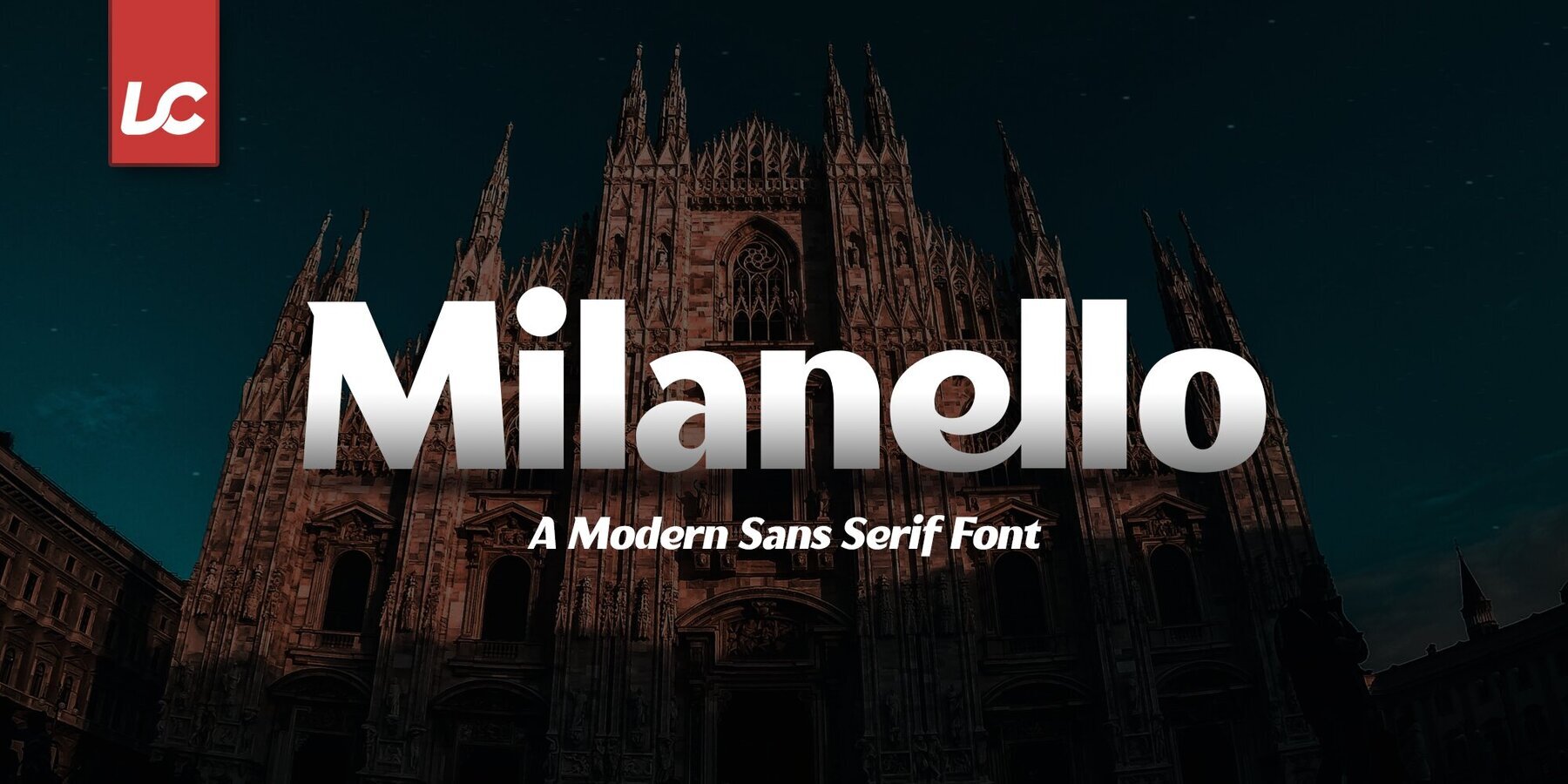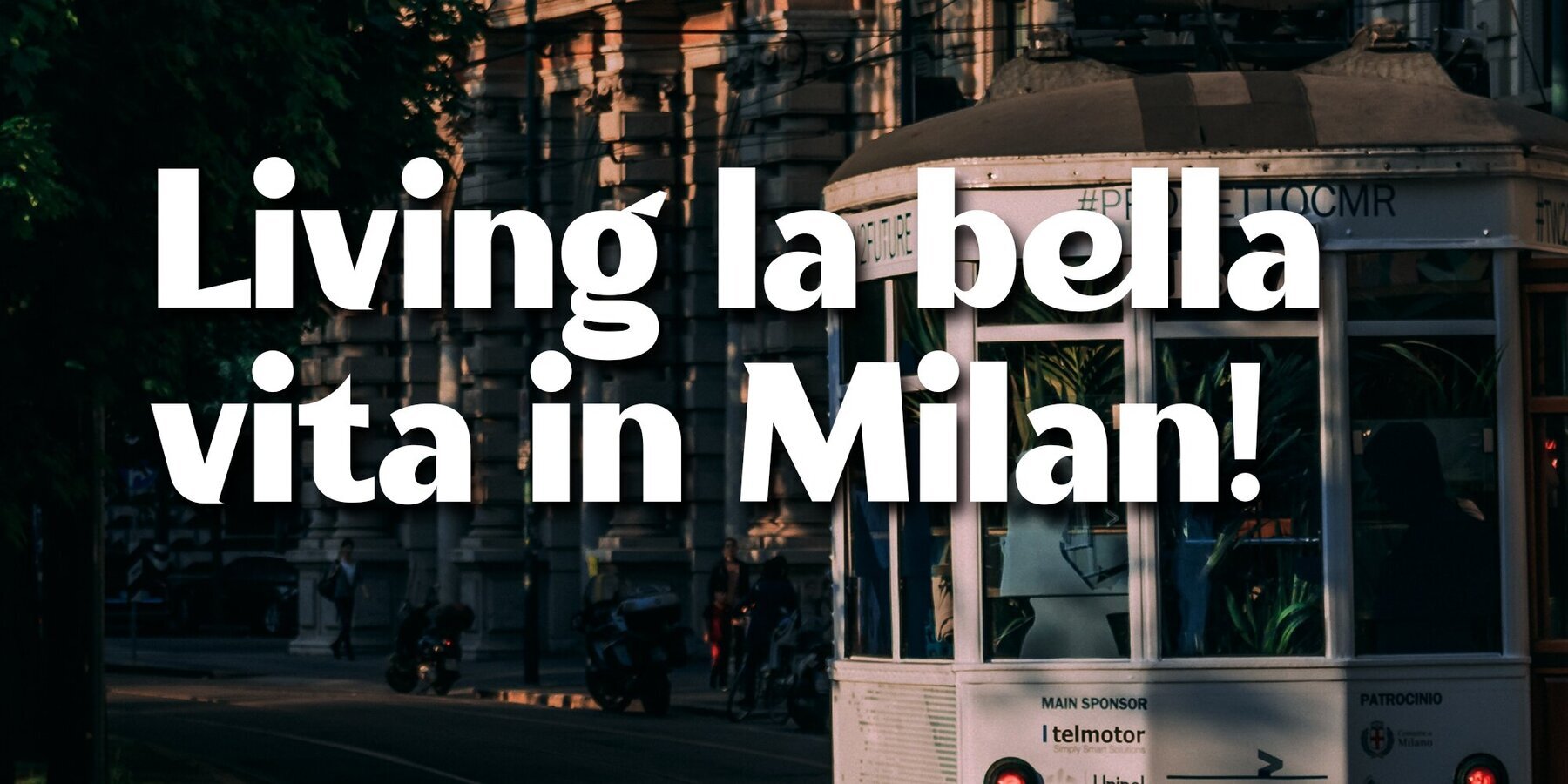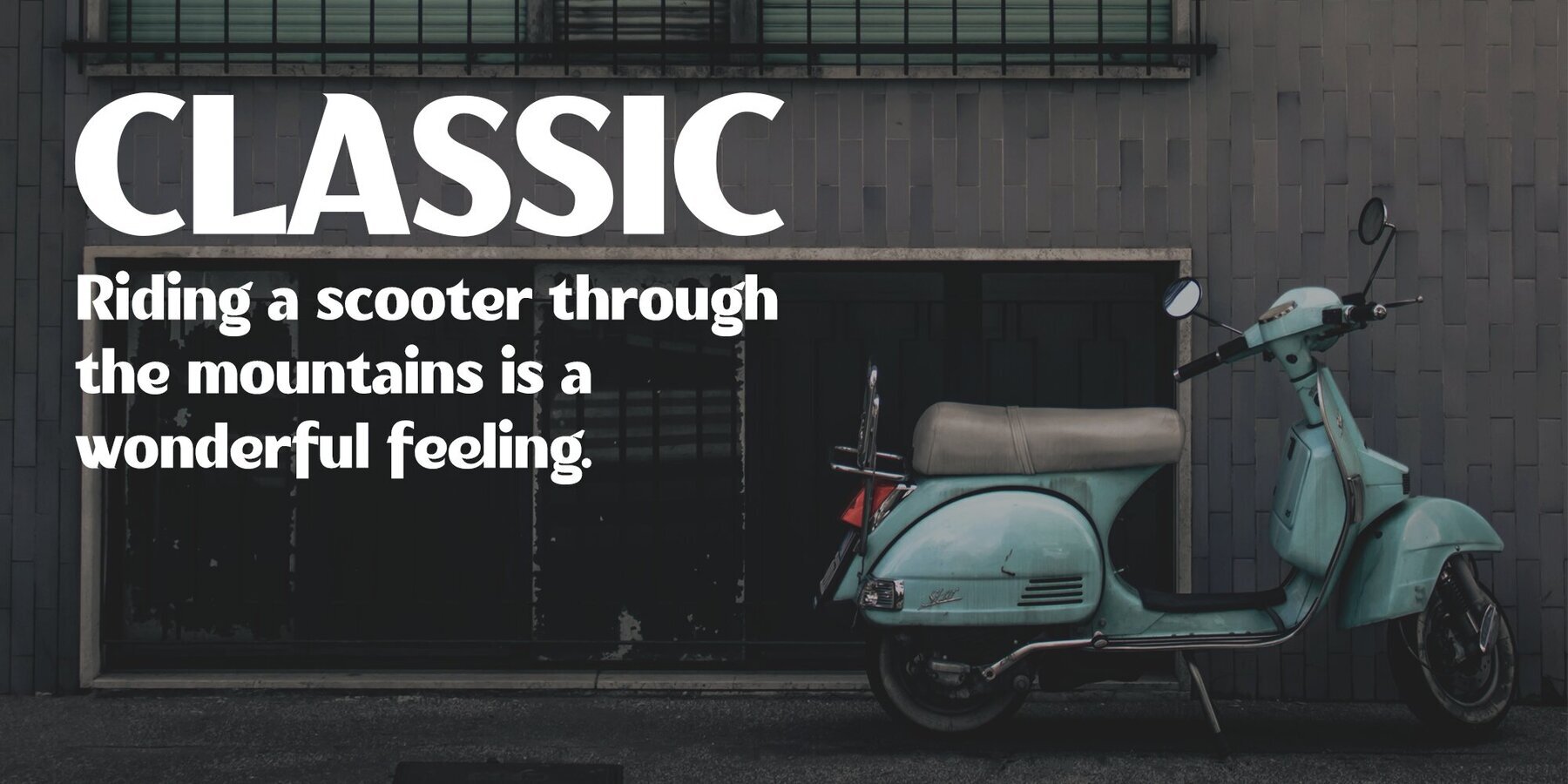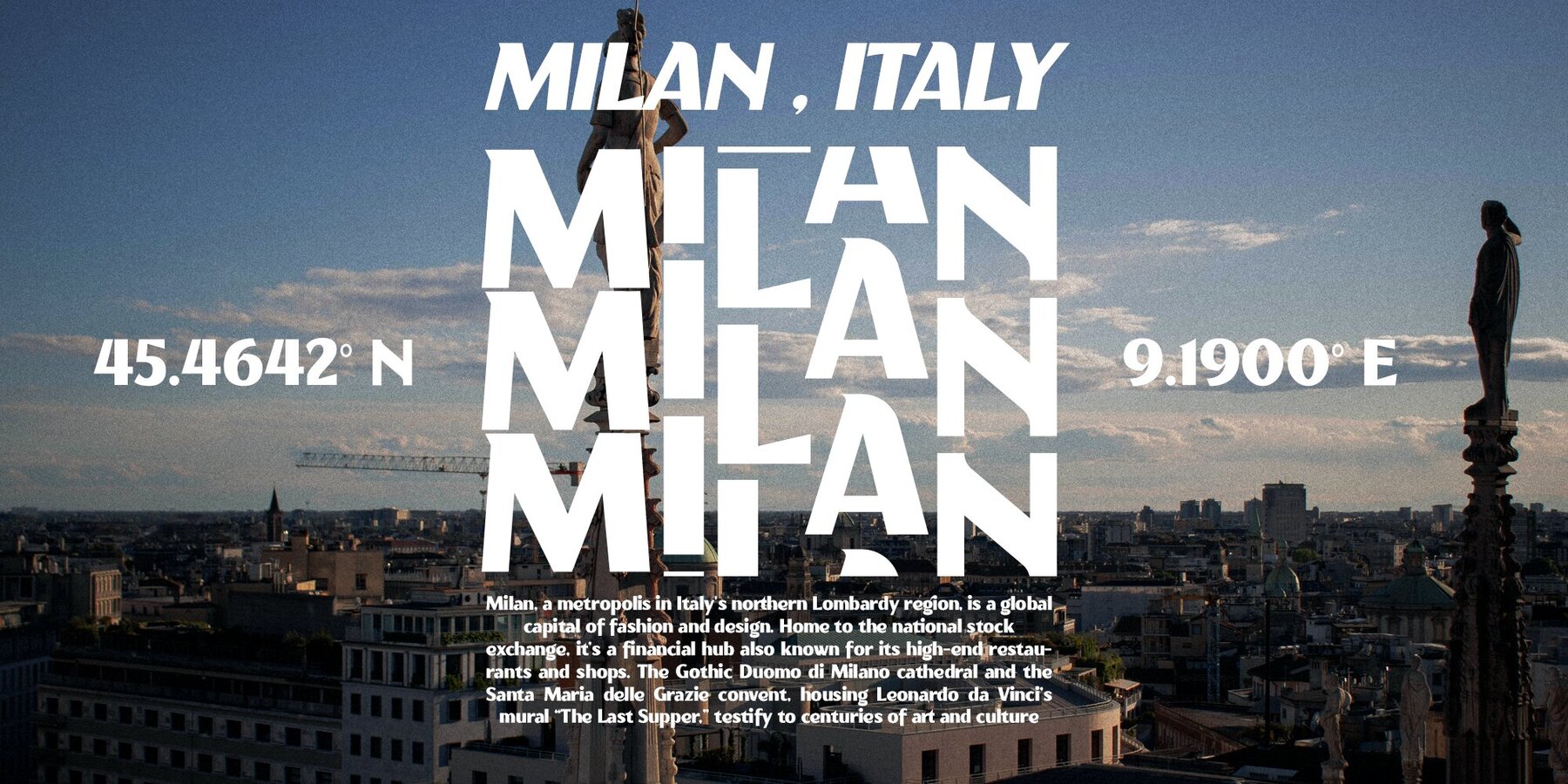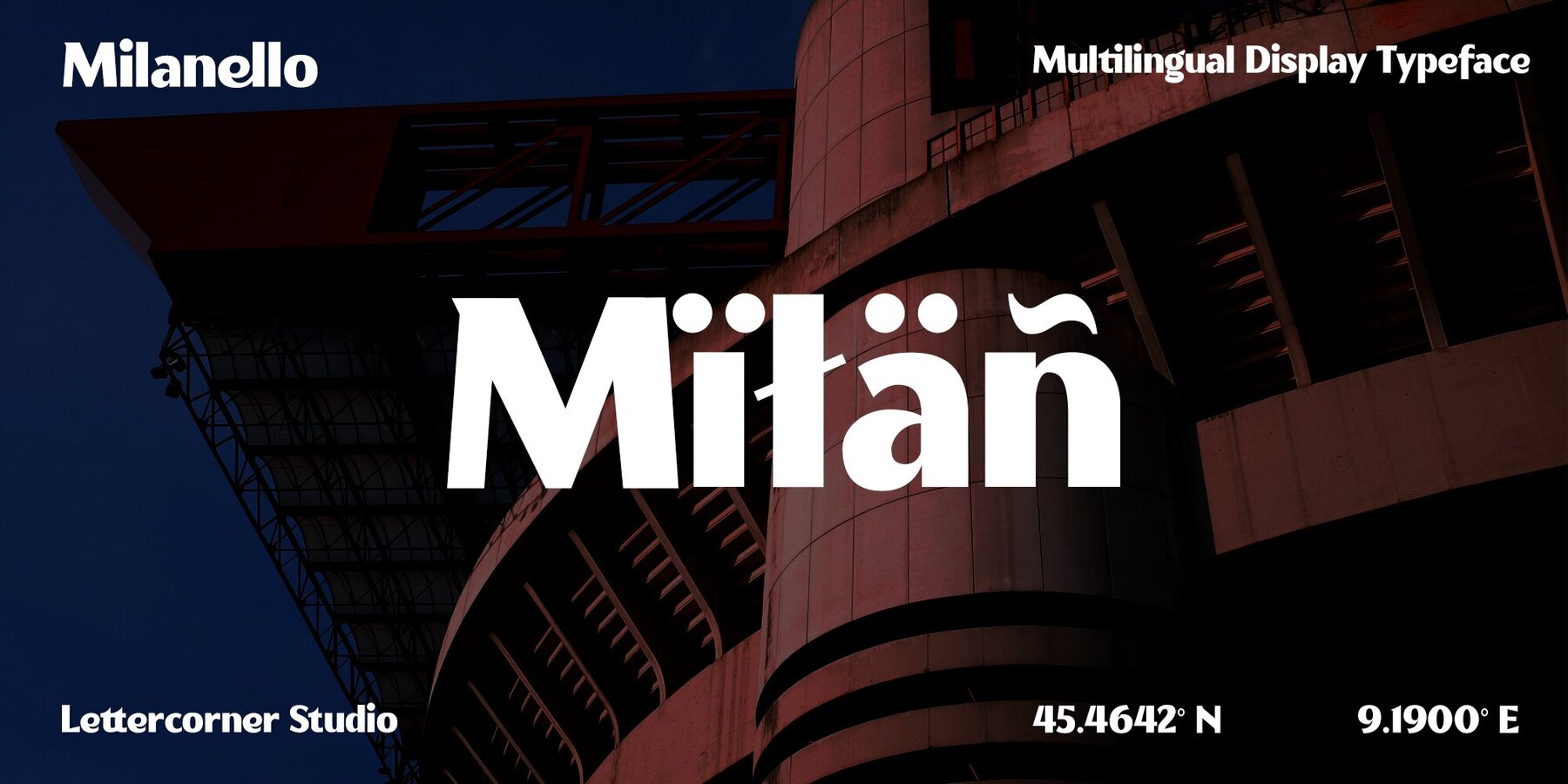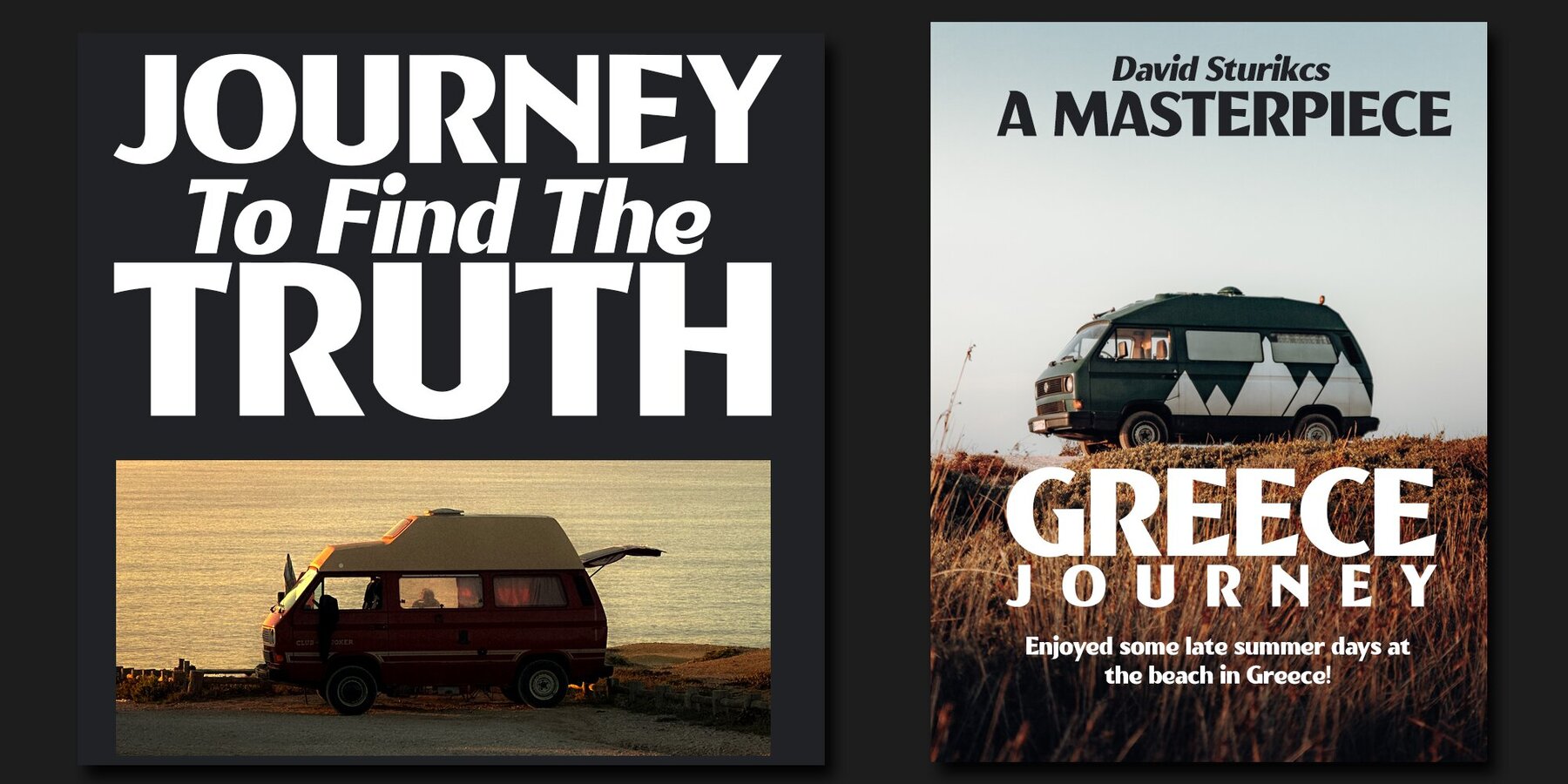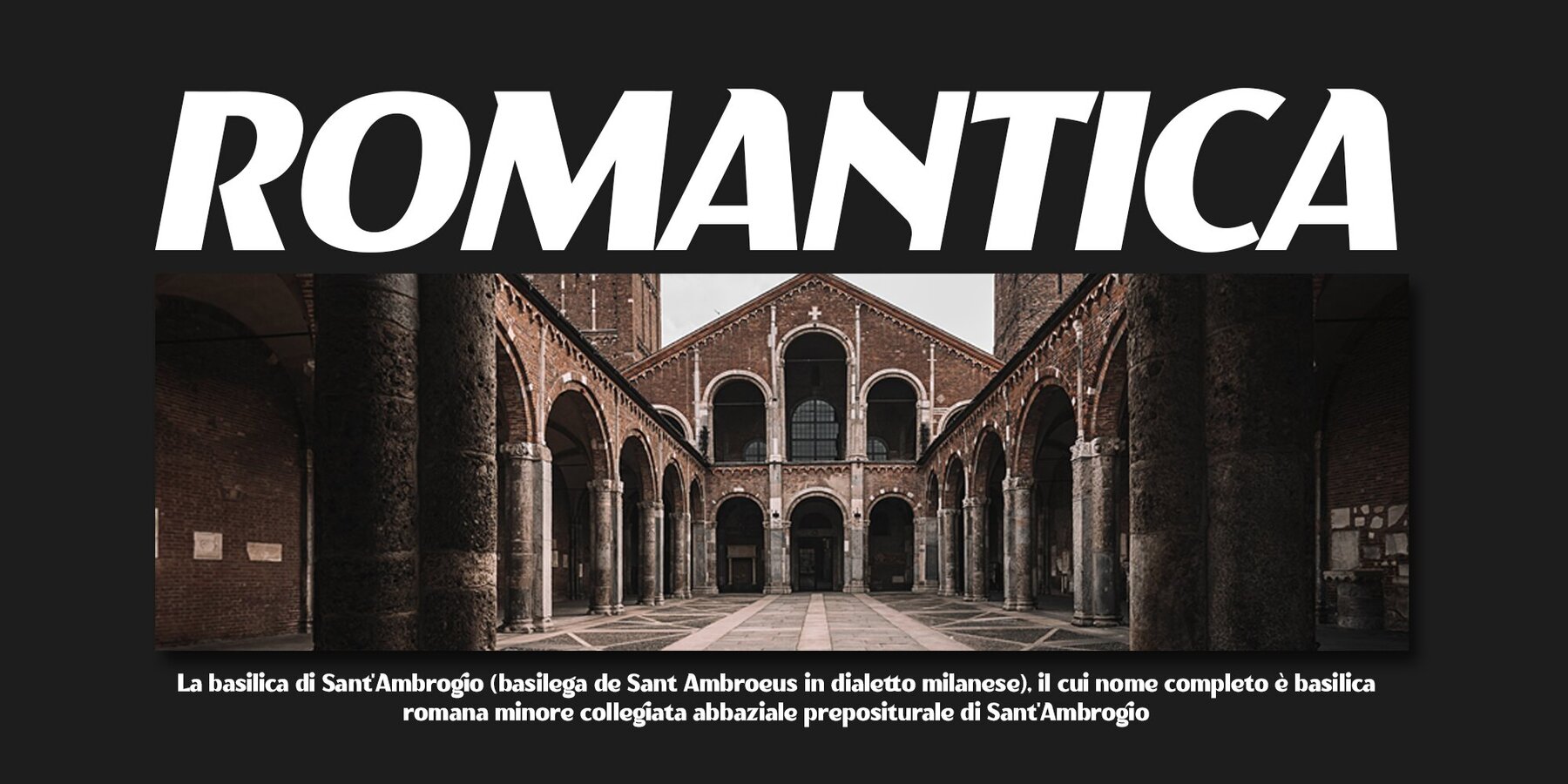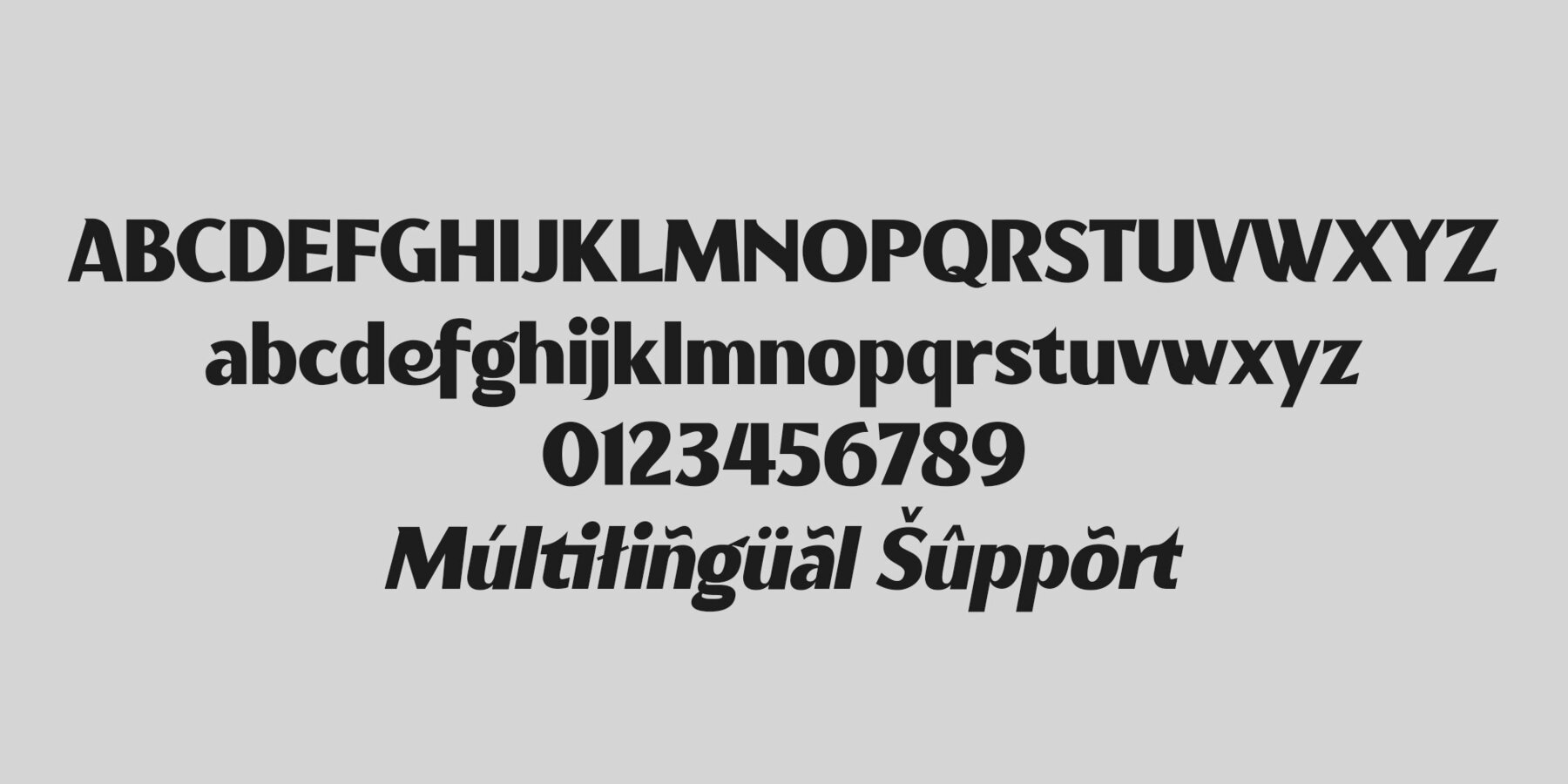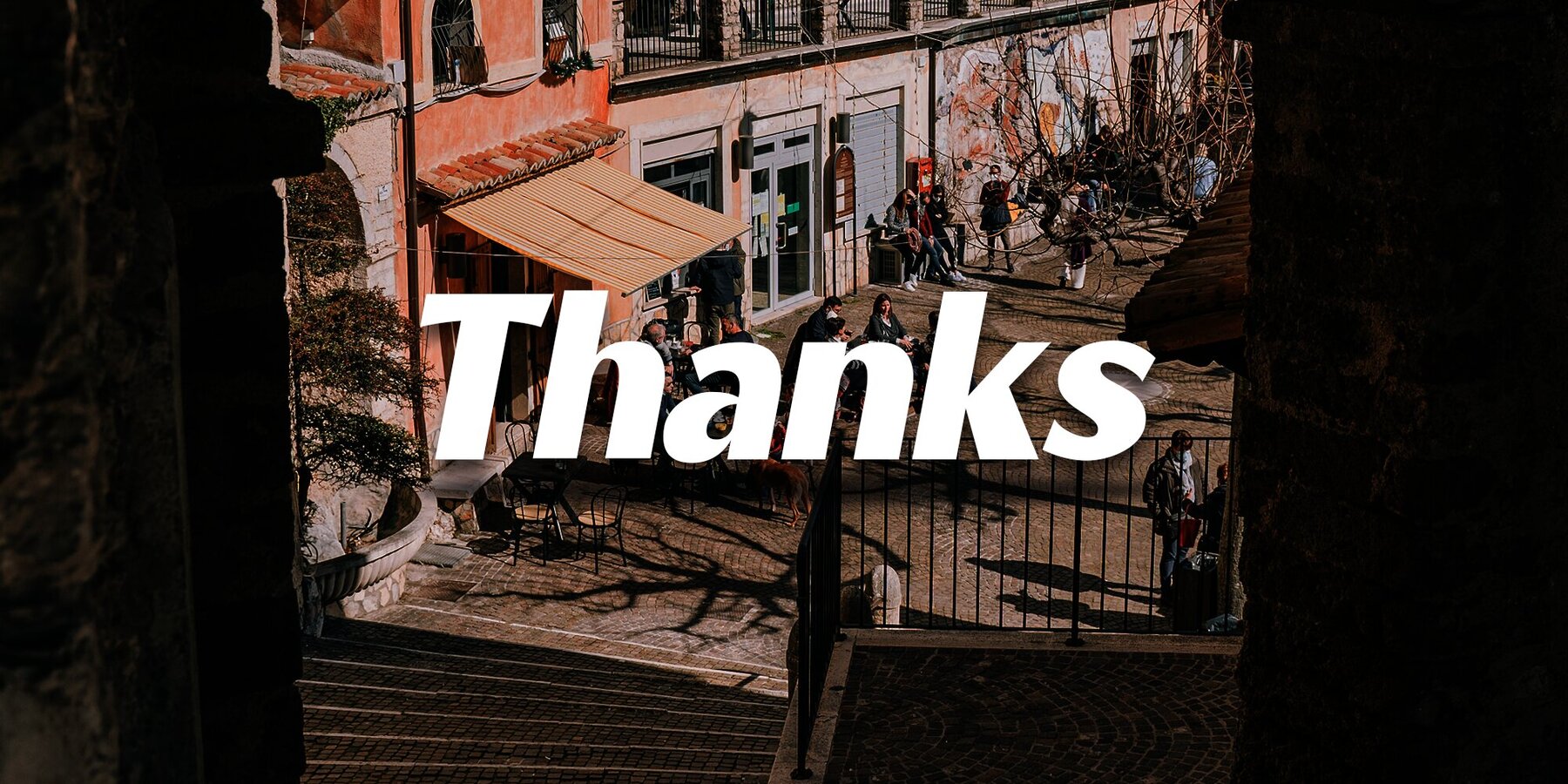
Milanello Font
Milanello is a strong sans serif font with medium contrast. Inspired by the High Octane Rock genre and modern-classic fashion. Carefully designed with a short ascender to give a solid look, also the sharp serif makes the letters look more strong. Milanello is a display-type which perfect for a headline, sub-headline, and short body text for magazine, books, fashion, quotes, hipster t-shirt, signboards, logo, and etc. A great choice for a brave concept!